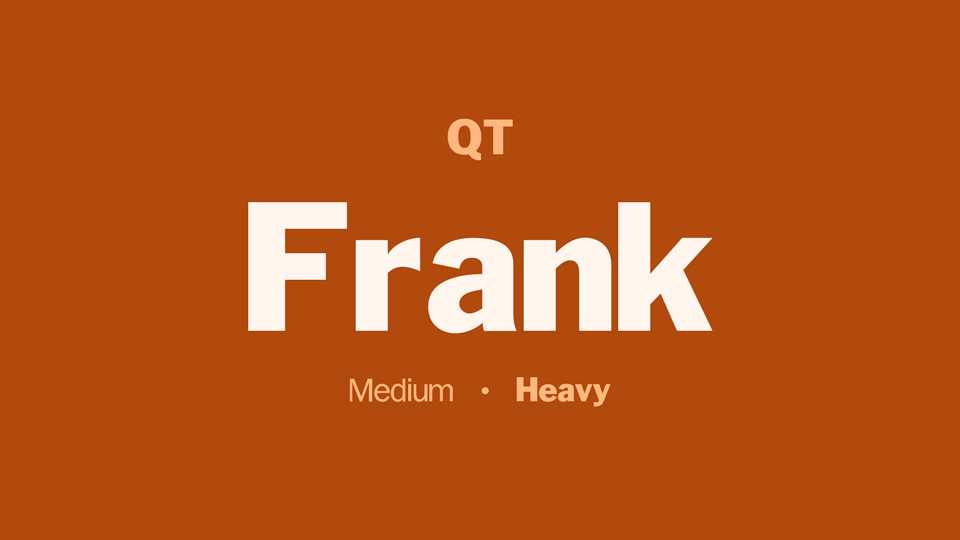
Download Frank typeface, a sans serif font family in two weights, based on the Franklin Gothic typeface, designed by Morris Fuller Benton for the ATF in 1903-1912.